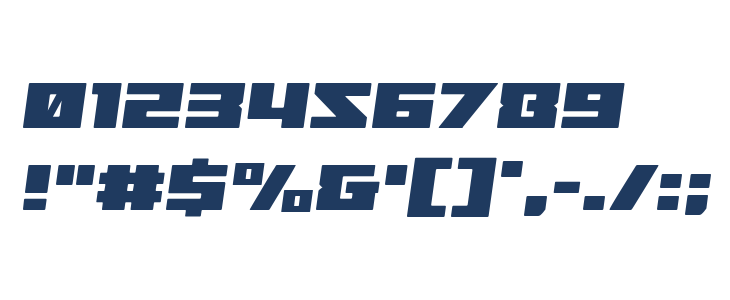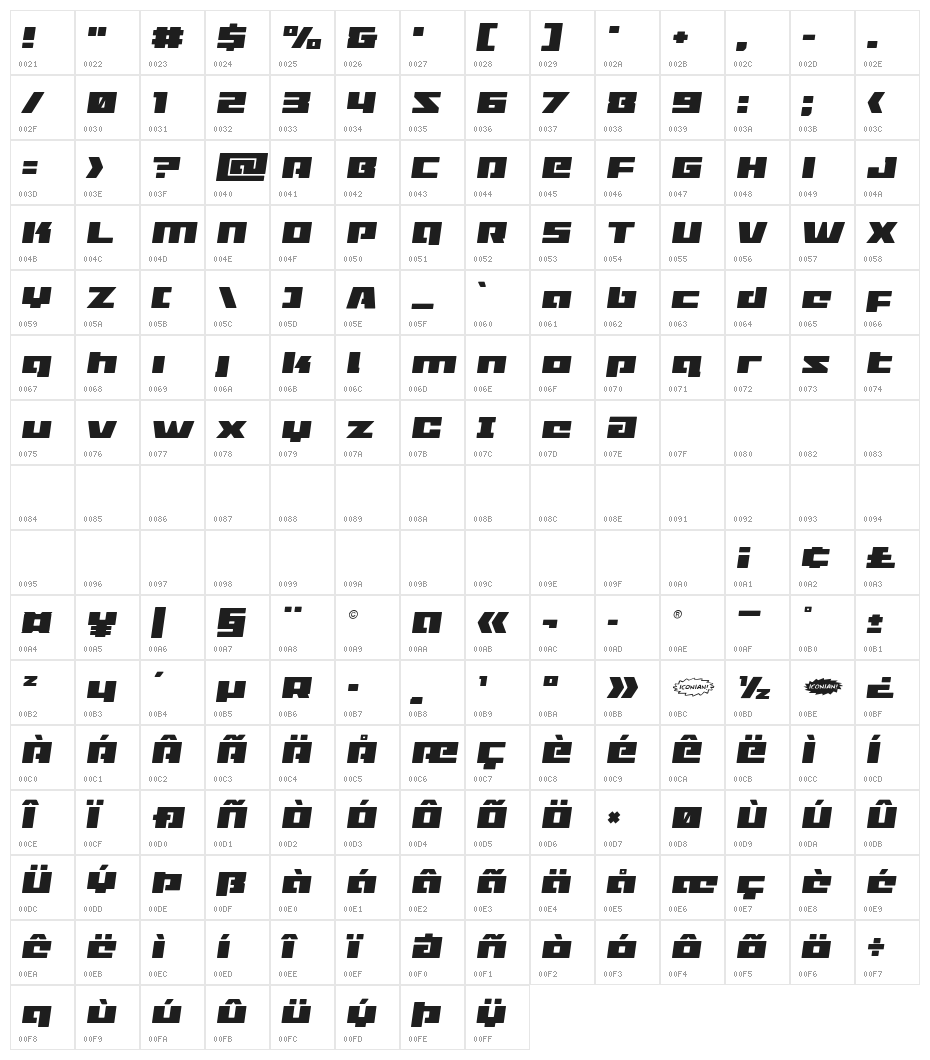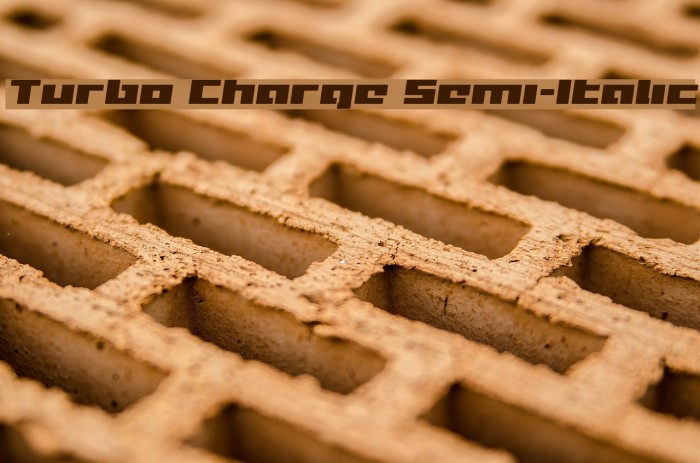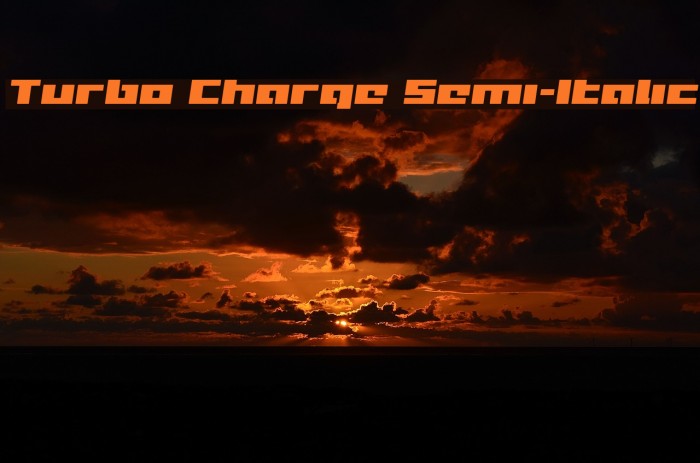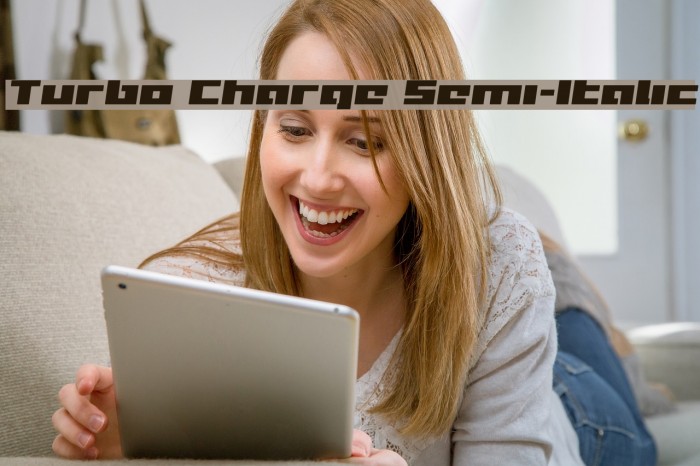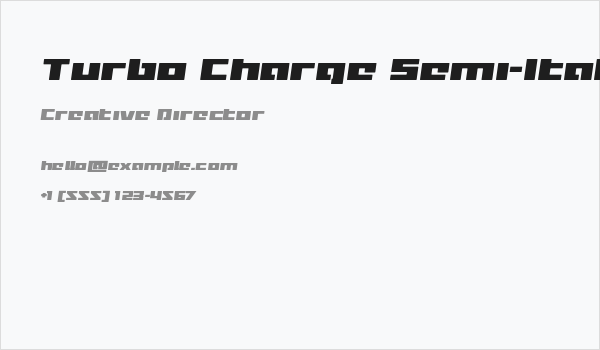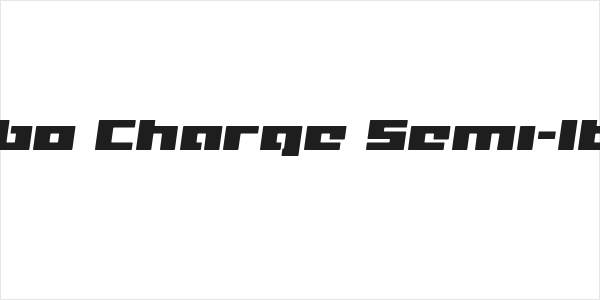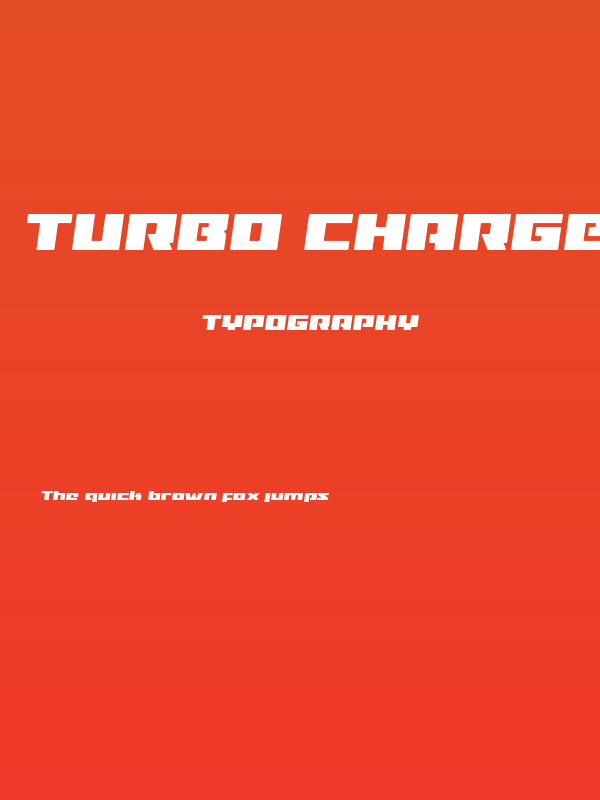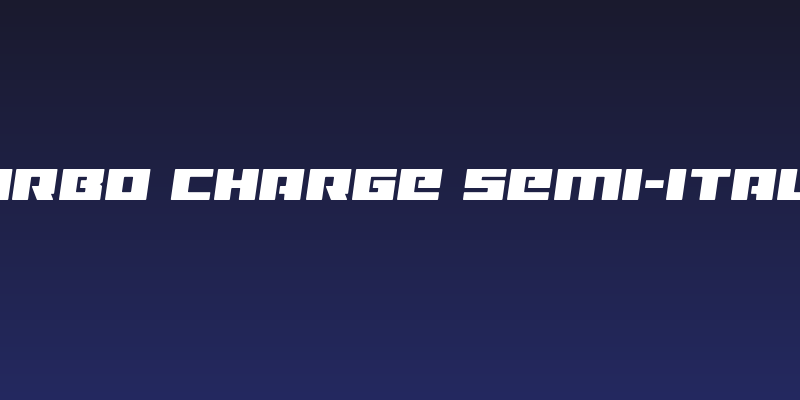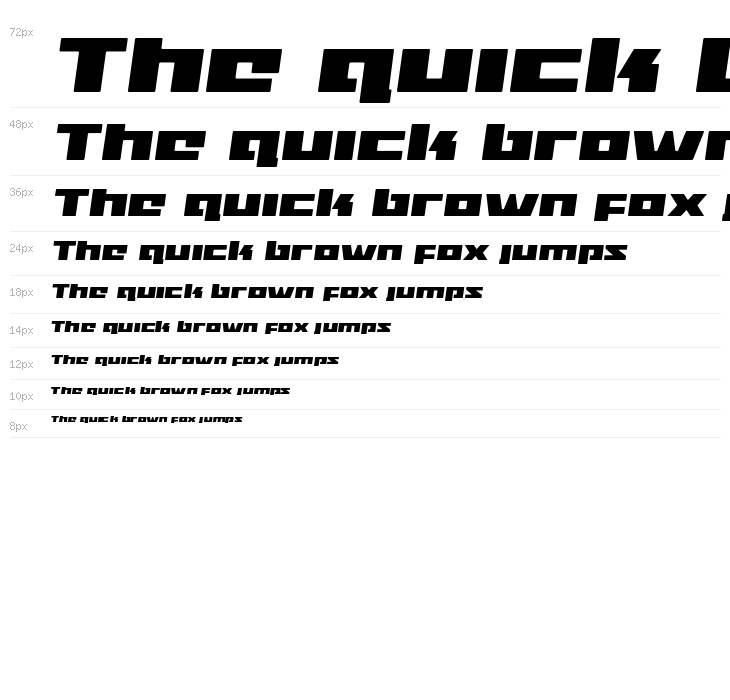
Turbo Charge Semi-Italic Font
Turbo Charge Semi-Italic Description
This font exhibits a bold and dynamic style with angular, geometric shapes that convey a sense of speed and modernity. The characters are designed with sharp edges and a slight forward slant, enhancing the impression of motion. The uppercase and lowercase letters maintain a consistent design language, with the lowercase letters mirroring the angularity of their uppercase counterparts. The numerals are equally bold and geometric, ensuring readability while maintaining the font's distinctive style. Special characters are designed to match the overall aesthetic, providing a cohesive look across all glyphs.
Proposed ProjectsIdeal for automotive branding, sports team logos, video game titles, and any project requiring a sense of speed and modernity.